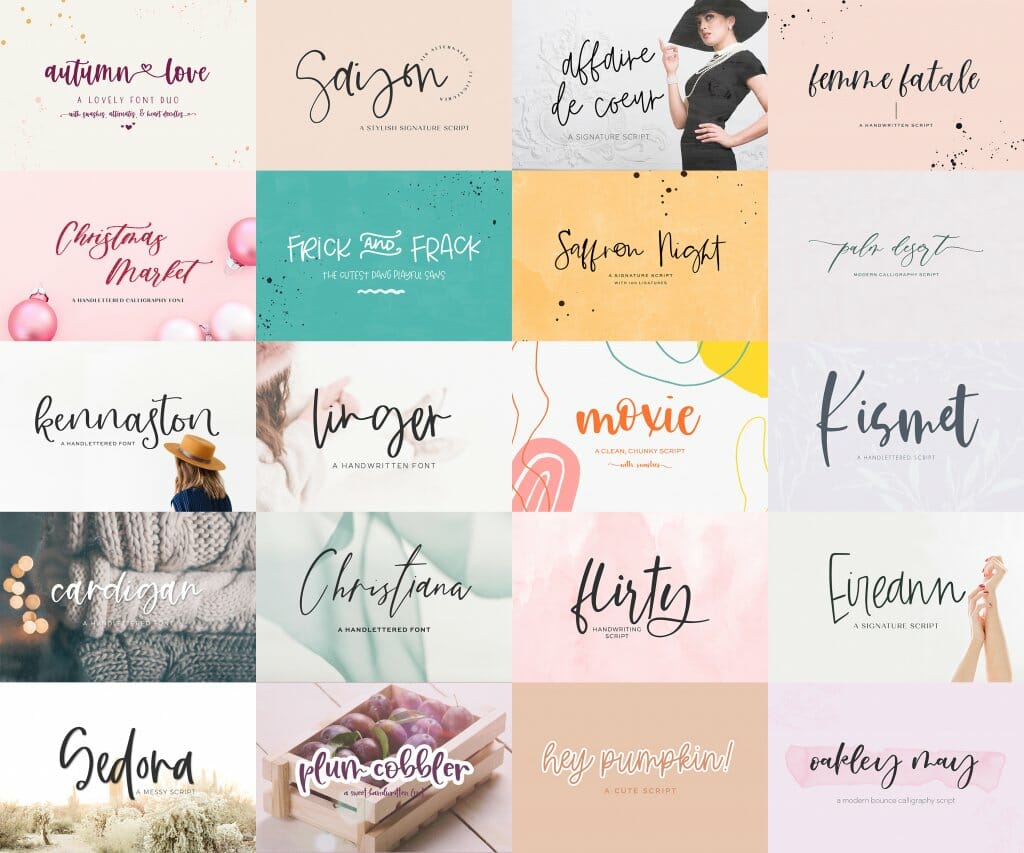
Listen up, people, I’ve got some great information for you on font bundles. Most serious designers will tell you that investing in a font bundle is one of the smartest decisions that a designer could make! I’m not telling you this just because I offer a killer font bundle, though.
Font Bundles Are A Great Investment, Boss
In addition to that, bundles are often curated for very specific styles, which allows people to expand their font arsenal with a variety of options. Me? I have some specific bundles that feature certain styles like farmhouse or signature style fonts. My biggest value, though, is a font bundle that includes every single one of my releases!
The search for the perfect font sometimes feels like a neverending, lengthy, and sometimes maddening search, but you won’t need to look very far…promise!
The One & Only Font Bundle You’ll Ever Need (At Least From Me)
This bundle has it all! The vast majority of my fonts are totally handlettered, although I do have a few mouse-made fonts lurking in my collection. You’ll find such categories as handlettered sans & sans serif fonts, all the way to cute crafty fonts perfect for your Cricut machine, trendy signature fonts, and elegant calligraphy fonts. The ways in which you can use these are practically endless & people love how unique they are on gifts!
Check out a small sampling of what’s included!
What Do You Use This Font Bundle For?
Many of my followers and customers use my fonts for things like logo & brand design, social media graphics and ads (marketing people will tell you that using the perfect font on ads can make all the difference!), making or designing crafts (like Cricut machines), creating products like signage or posters, and many other creative items. You can find some of my fonts used on Amazon products, on Minted.com, on Smallwoods, and in many individual Etsy shops!
I love packing my fonts full of extra features. Many of them feature alternate characters that truly enhance the handwritten look & feel. I also include fonts that have lovely flowing swashes. Some have more extensive features, like heart doodles or hearts that connect words, like my Autumn Love font.
Being able to provide fun to use tools, helpful information, design resources, and really awesome font bundles is extremely important to me…and nothing is better than being able to see your font designs out in the wild! It’s truly gratifying to see my own work show up in the designs of other creative professionals!